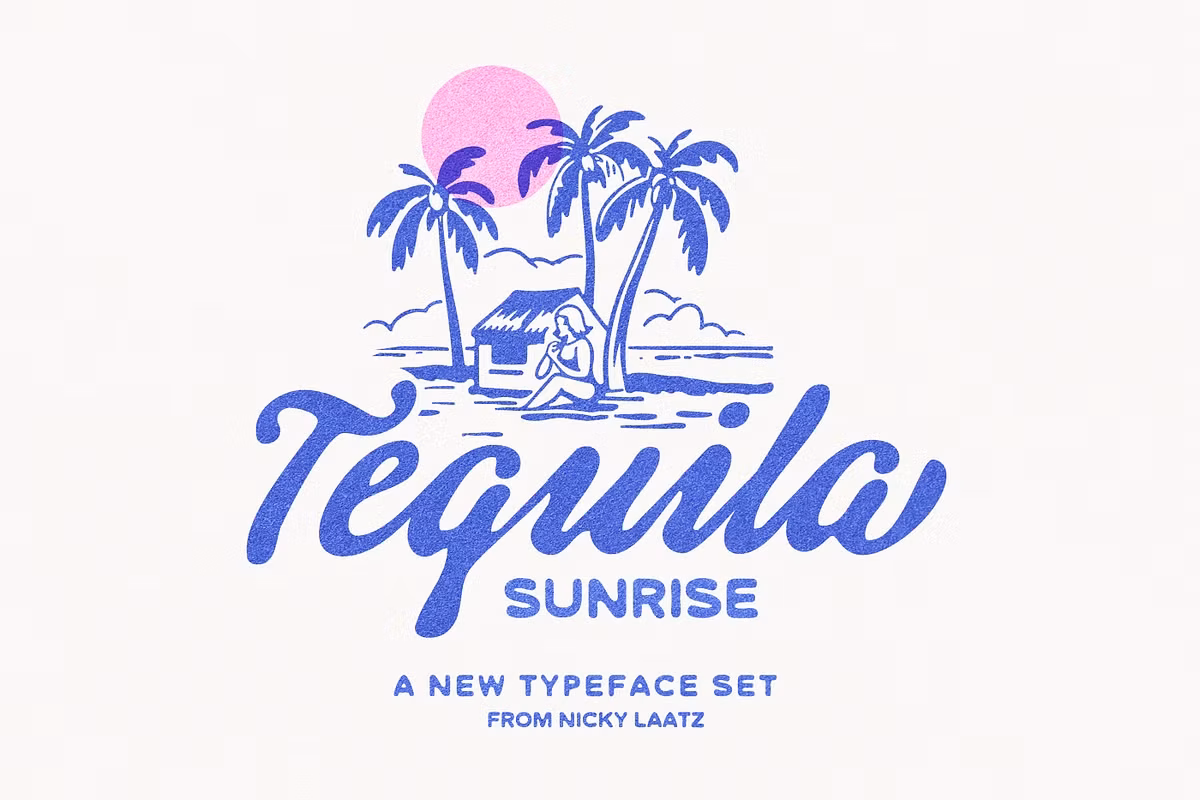
Tequila Sunrise Typeface Pack Free Download
Tequila Sunrise Typeface Pack Free Download is a vibrant and retro-inspired font collection perfect for vintage posters, bold branding, merch designs, and eye-catching social media graphics. With its playful curves and nostalgic flair, this typeface pack brings a sunny, upbeat energy to any creative project. Please note that you must purchase this font for commercial use, but it is available as a free download for testing purposes. Add a splash of personality to your work with Tequila Sunrise Typeface Pack Free Download and let your designs stand out with retro charm and bold expression.